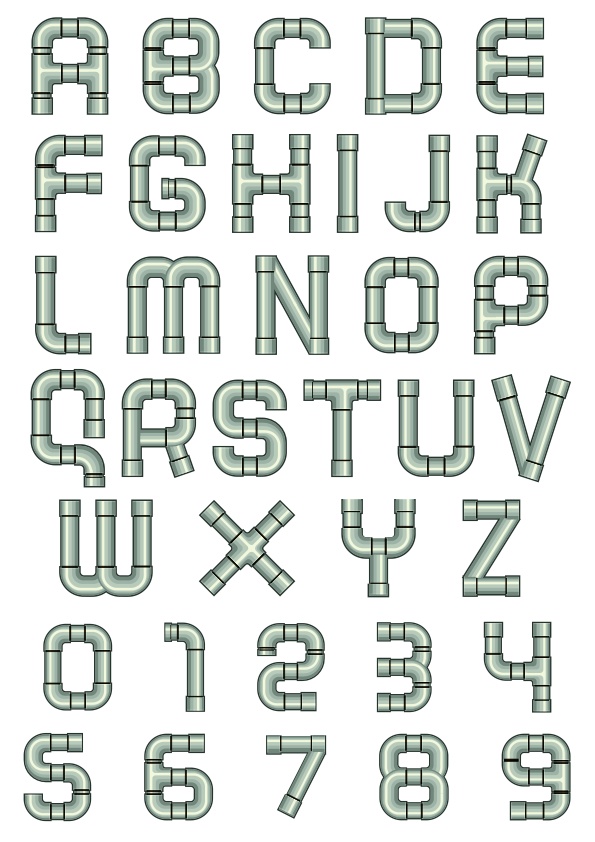
Industrial Pipe Font Alphabet and Numbers Free Vector
Vector set of uppercase alphabet letters and numbers designed as industrial metal pipes connected by joints, creating a mechanical and engineering-themed font style.